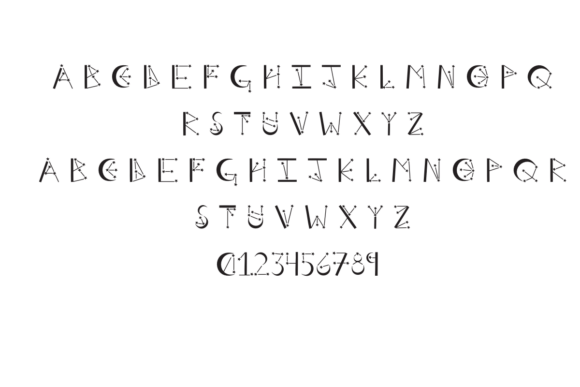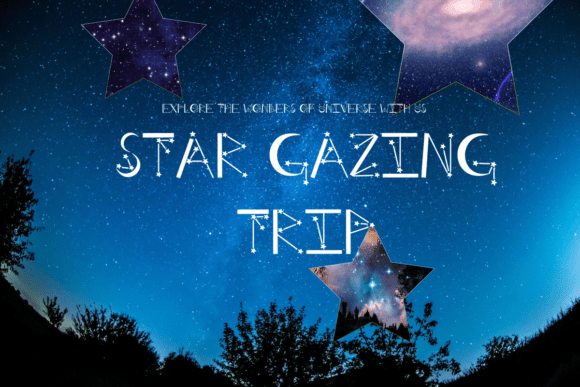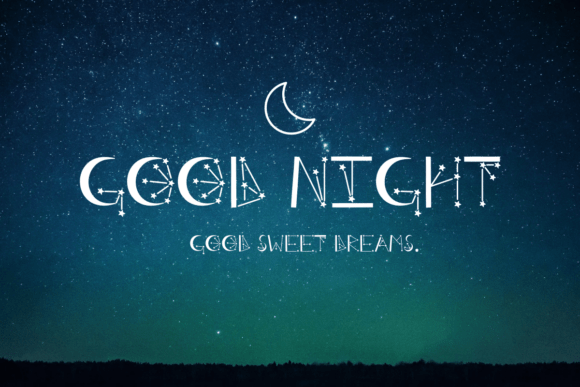
Stars Font
Stars is a celestial-inspired decorative font that captures the magic of the night sky. Featuring elegant letterforms adorned with constellation-like star connections, this unique typeface is perfect for space-themed designs, astrology projects, branding, posters, book covers, and more. With its dreamy and cosmic aesthetic, Stars adds a touch of wonder and mystery to any creation.